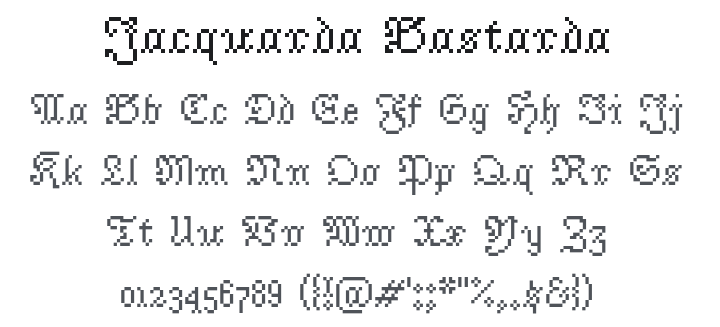
Jacquarda Bastarda Font Family
About Jacquarda Bastarda
Jacquarda Bastarda is an expanded revival typeface from a bastarda-esque Victorian needlepoint alphabet designed in Berlin by Heinrich Kuehn circa 1880.
Each typeface has a “Regular” and “Charted” version, and some include multiple scales so you can fit type on your knits, no matter the project's size.
In this collection, the number following the typeface's name indicates the height of the capital letters for that typeface.
These typefaces were designed with machine knitting in mind, but could be used for hand knitting, needlework, bedazzling, or many other textile crafts.